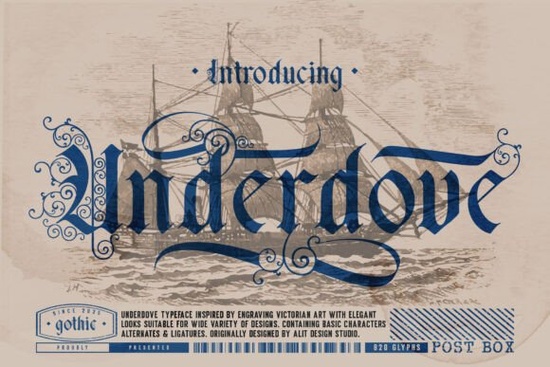
If you're looking for a font that combines the rich, historical elegance of blackletter with the modern flexibility needed for today's designs, Underdove Font is a fantastic choice. This typeface is not just a set of characters; it's a visual narrative that brings a sense of mystery, resilience, and nobility to your projects.
Design Inspiration Behind Underdove Typeface
Underdove draws its inspiration from the Victorian era's ornamental engravings and classical calligraphy. The intricate details and ornamental swashes in this font evoke the craftsmanship of 19th-century woodcuts and maritime documents. Imagine old nautical maps, heraldic documents, and vintage engravings each character in Underdove reflects these elements, making it a perfect fit for projects that require a touch of historical beauty.
Why Choose Underdove for Your Next Project?
Underdove is more than just a pretty font; it's a versatile tool for designers, crafters, and print-on-demand sellers. Here are a few reasons why it stands out:
- Historical Elegance: The font's design is rooted in the Gothic tradition, giving it a timeless, authoritative feel.
- Versatility: Whether you're working on branding, editorial designs, packaging, or posters, Underdove can add a high-impact, sophisticated touch.
- Modern Flexibility: Despite its historical roots, Underdove is designed to meet the demands of modern creatives, offering a balance between classic and contemporary styles.
Font Aesthetics and Usage
The aesthetics of Underdove are a blend of bold Gothic structure and flourished elegance. Here’s a closer look at what makes this font unique:
- Intricate Flourishes and Ornamental Swashes: These elements give the font a majestic, ceremonial quality, making it ideal for formal and high-end projects.
- Sharp, Angular Terminals: Balanced with soft, curling embellishments, these terminals add a refined, yet dynamic look to the text.
- Subtle Texture: The texture mimics hand-engraving, which is perfect for vintage or steampunk-inspired projects. It adds a tactile, authentic feel to your designs.
- Logos: The strong, elegant design can make a lasting impression for brands that want to convey authority and sophistication.
- Book Covers: For books that need a touch of historical or gothic flair, Underdove can be a perfect match.
- Spirits & Wine Labels: The font's regal and detailed style can enhance the premium feel of luxury products.
- Editorial Layouts: Whether for magazines, brochures, or other printed materials, Underdove can add a high-impact, professional look.
- Test Different Sizes and Spacings: Experiment with different sizes and letter spacing to find the perfect balance for your project. Underdove's intricate details can shine at larger sizes, but it also works well in smaller, more subtle applications.
- Combine with Simpler Fonts: Pair Underdove with simpler, more legible fonts for body text. This will help maintain readability while still adding a touch of elegance to your design.
- Use for Highlighted Text: Consider using Underdove for headlines, titles, or highlighted text. Its bold, ornate style can draw attention and add a sense of importance to key elements in your design.
Ideal Projects for Underdove
Given its unique characteristics, Underdove is particularly well-suited for a variety of creative projects:
Comparing Underdove with Other Blackletter Fonts
While Underdove is a standout in its category, it's always good to know how it compares with other popular blackletter fonts. Here are a few others you might consider:
Each of these fonts has its own strengths, but Underdove stands out for its balance of detail and versatility. If you’re looking for a font that can bring both historical elegance and modern flexibility to your projects, Underdove Font is definitely worth considering.
Practical Tips for Using Underdove in Your Designs
To get the most out of Underdove, here are some practical tips:
By following these tips, you can effectively incorporate Underdove into your projects and create designs that are both visually stunning and historically rich.